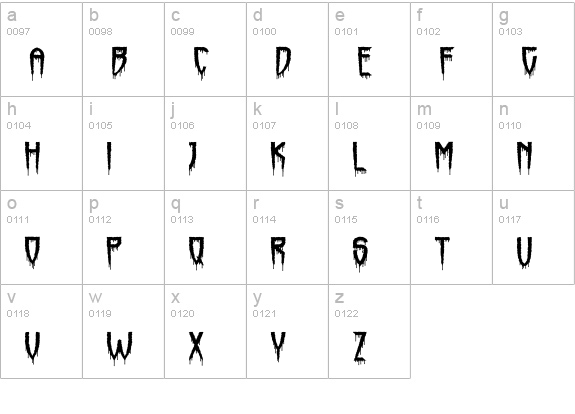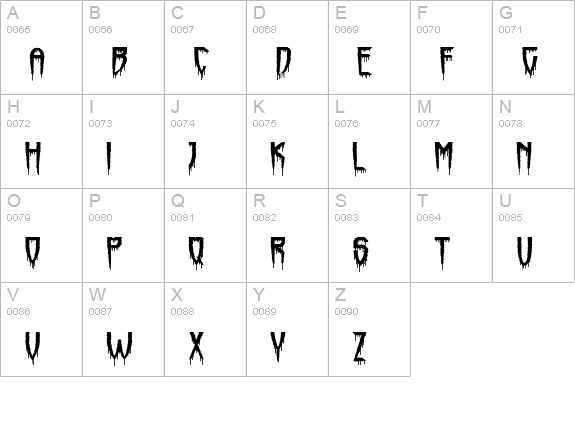
Horrorfind Font Details
Introducing Horrorfind, a spine-chilling and captivating font that will send shivers down your spine. This font is the embodiment of all things eerie and macabre, perfect for adding a touch of horror to your designs. Its twisted and jagged letterforms are reminiscent of the shadows that lurk in the darkest corners of your nightmares. But here's the best part - Horrorfind is freely available to download at FontsMarket.com! That's right, you can unleash the terror of this font without spending a dime. Whether you're working on a spooky Halloween poster, a haunting book cover, or a bone-chilling movie title, Horrorfind will give your project the extra dose of fear it needs. With its meticulously crafted details and hauntingly beautiful curves, Horrorfind will captivate your audience and leave them with a lingering sense of unease. Let your imagination run wild as you explore the endless possibilities this font offers, from haunted castles to ghostly forests, from ancient curses to supernatural creatures. So why wait? Don't miss out on this opportunity to download Horrorfind for free at FontsMarket.com. Unleash the darkness and embrace the thrill of creating spine-tingling designs with this terrifyingly beautiful font. But beware, once you've experienced the haunting allure of Horrorfind, you may find yourself unable to resist its chilling embrace.